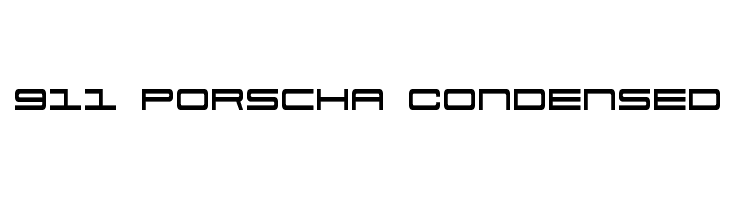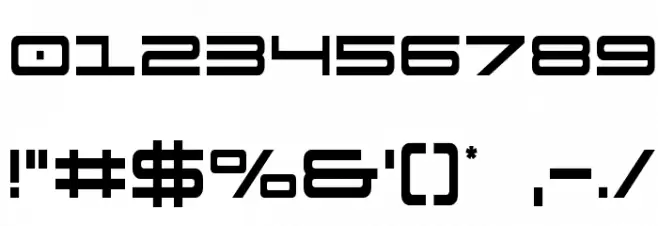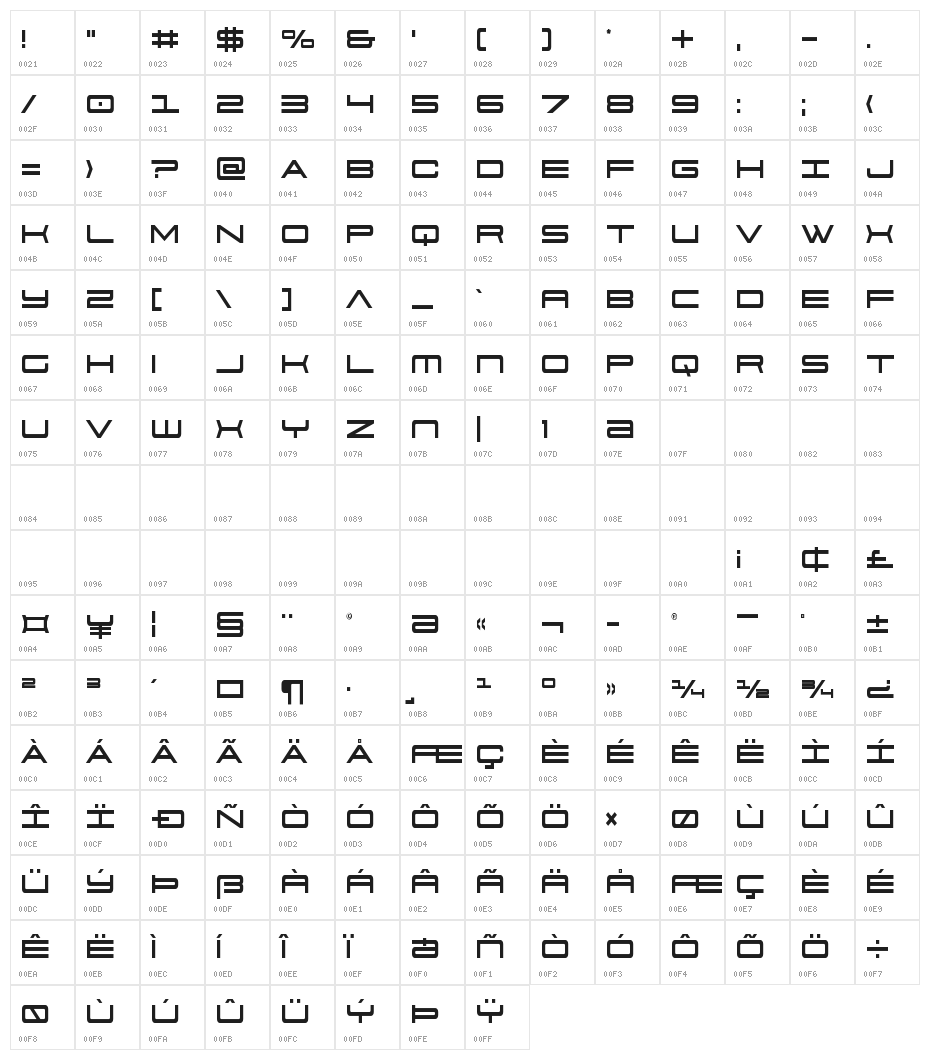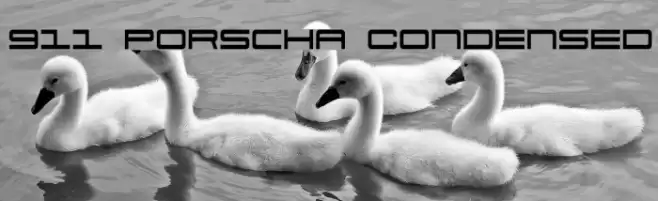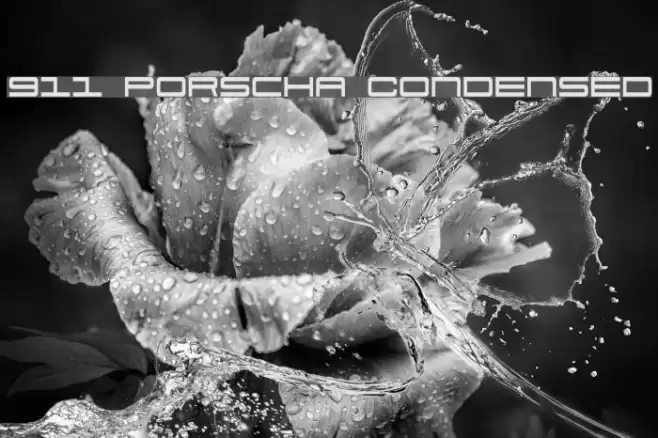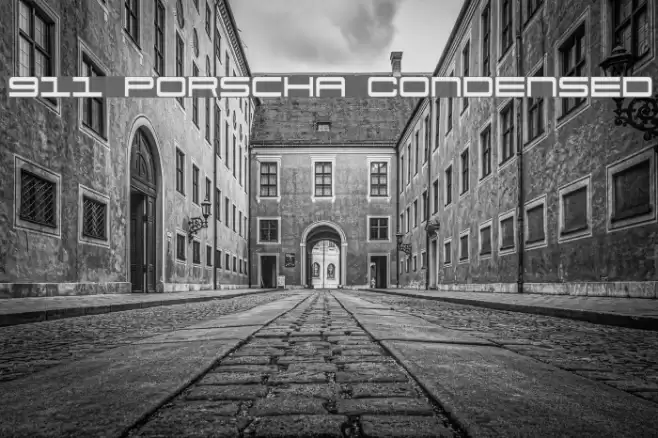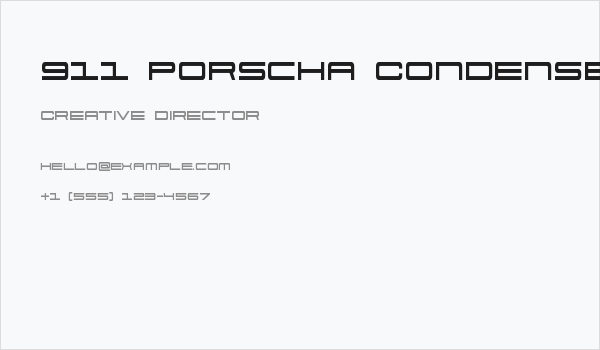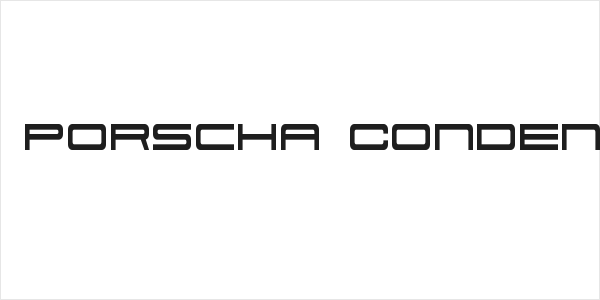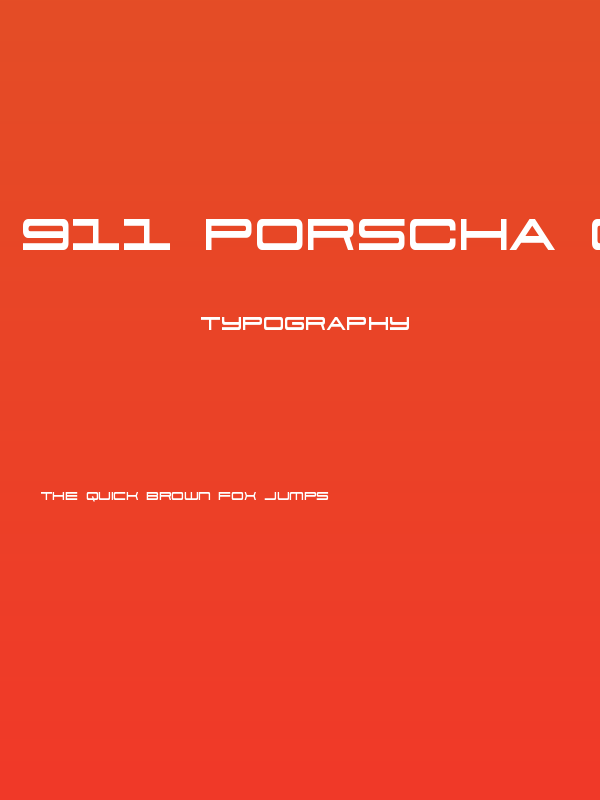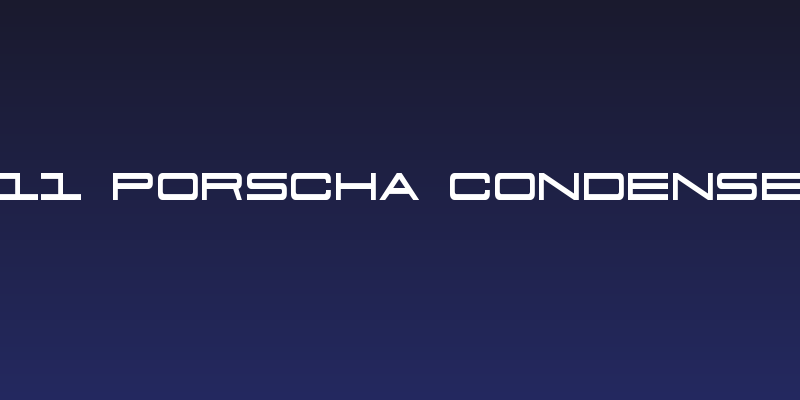
911 Porscha Condensed Font
911 Porscha Condensed Description
This font exhibits a sleek, modern design with a condensed structure that emphasizes a futuristic and streamlined aesthetic. The characters are uniformly spaced with a geometric precision that enhances readability while maintaining a unique style. The uppercase letters are bold and assertive, featuring sharp angles and clean lines, which contribute to a sense of speed and efficiency. The lowercase letters mirror this design, offering a cohesive look across different text cases. Numbers are clear and distinct, ensuring legibility in various contexts. Special characters are crafted with the same attention to detail, making this font versatile for a wide range of applications.
| Use Case | Logos, Headlines, Digital Interfaces |
| Proposed Projects | Ideal for automotive branding, technology logos, modern advertising, and digital interfaces. |